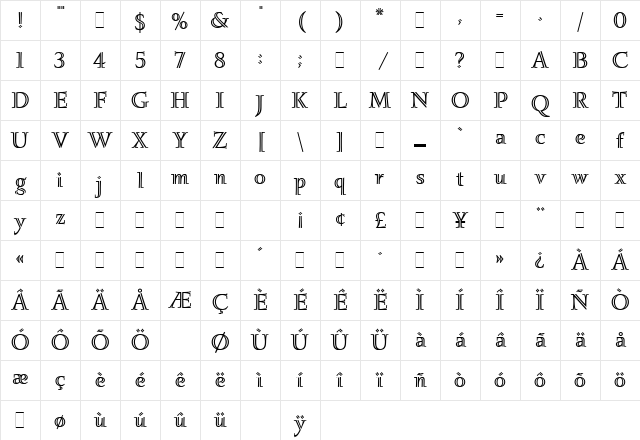
Complete Ignatius LET Plain glyph index. Displaying only characters natively supported by Ignatius LET Plain font.
Ignatius LET is a composed and adaptable typeface that performs quietly and consistently across a wide range of design contexts.